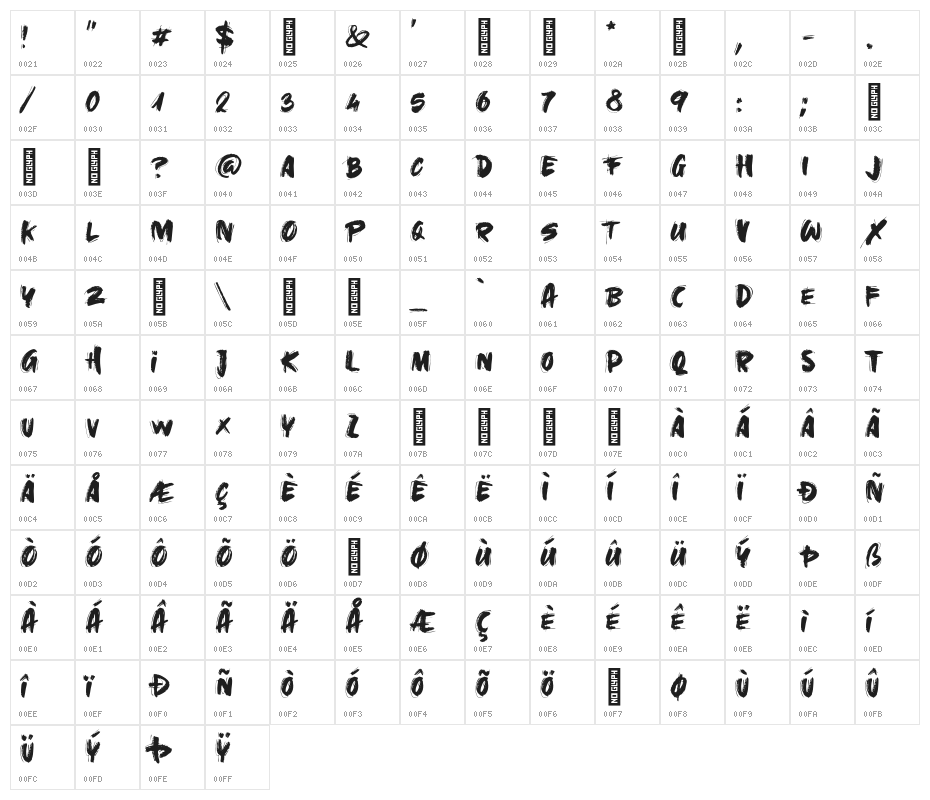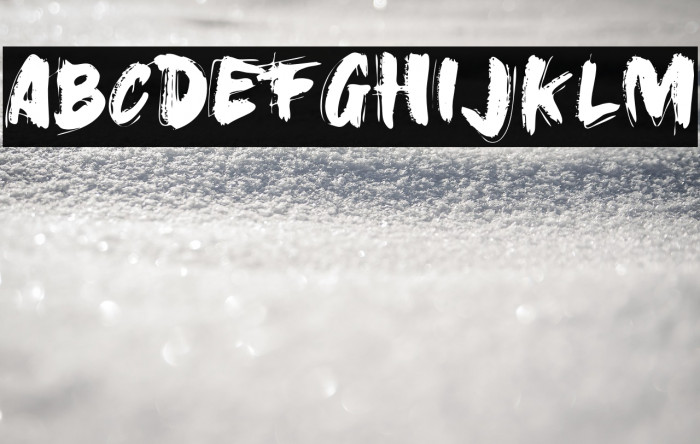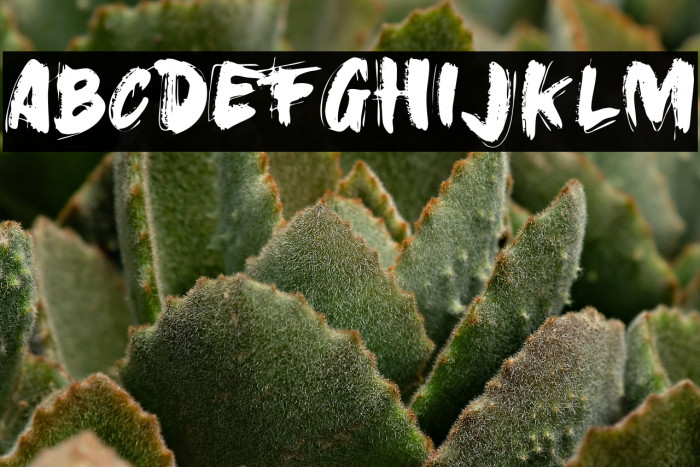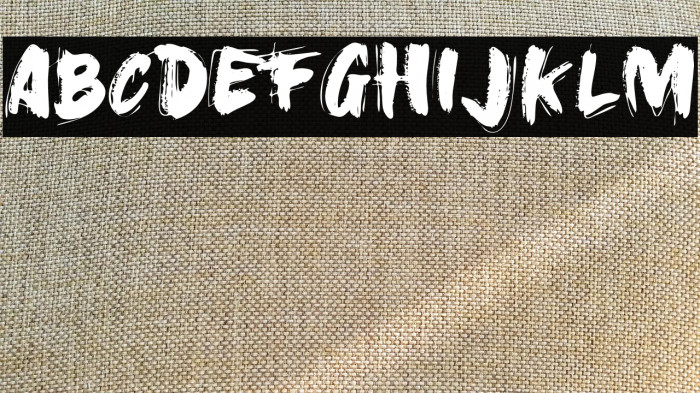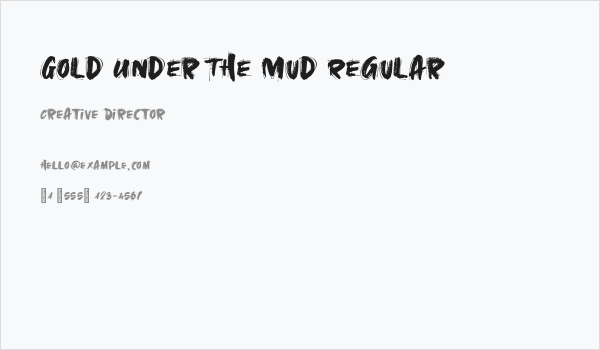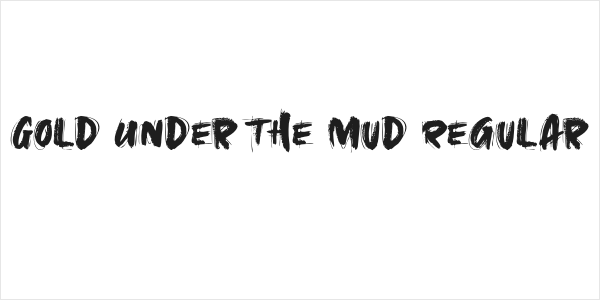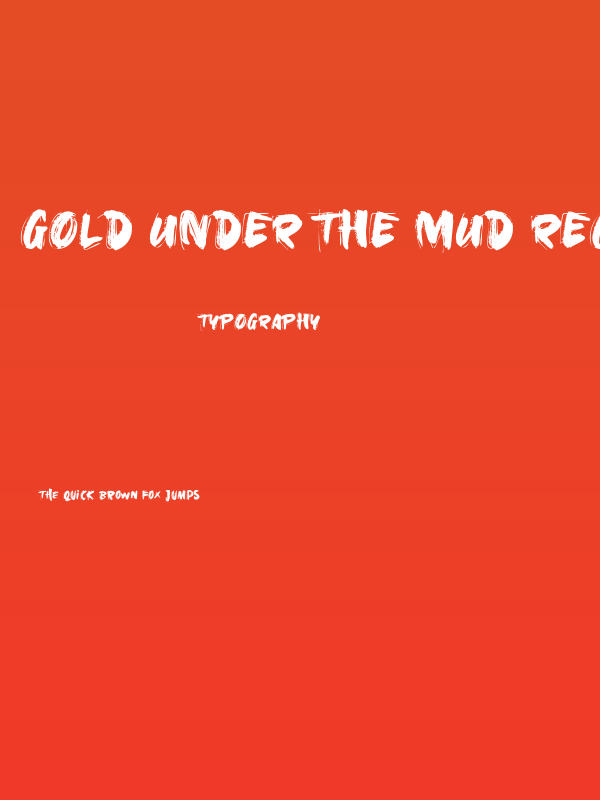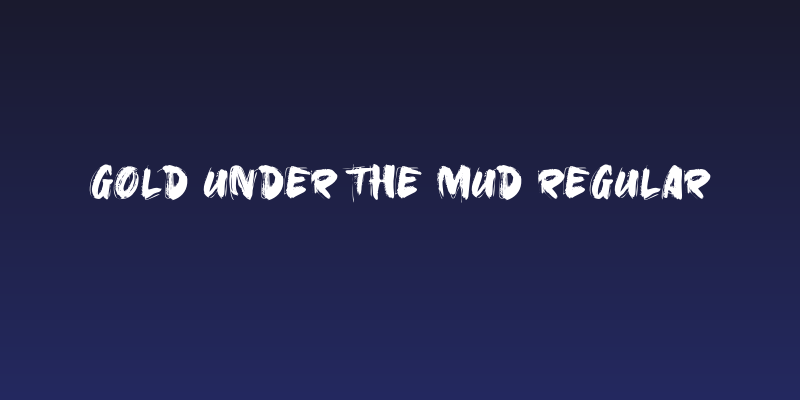
Gold Under The Mud Regular Font
Gold Under The Mud Regular Description
This font features a bold, expressive brush style with a hand-painted appearance. The strokes are thick and dynamic, giving it a raw and energetic feel. The characters have an irregular, organic shape, with varying stroke widths that add to its artistic flair. The uppercase and lowercase letters maintain a consistent style, while the numerals and special characters complement the overall aesthetic. This font is ideal for projects that require a bold, artistic touch, such as posters, album covers, or branding materials that aim to convey creativity and individuality.
| Proposed Projects | Ideal for posters, album covers, branding materials, and creative projects. |